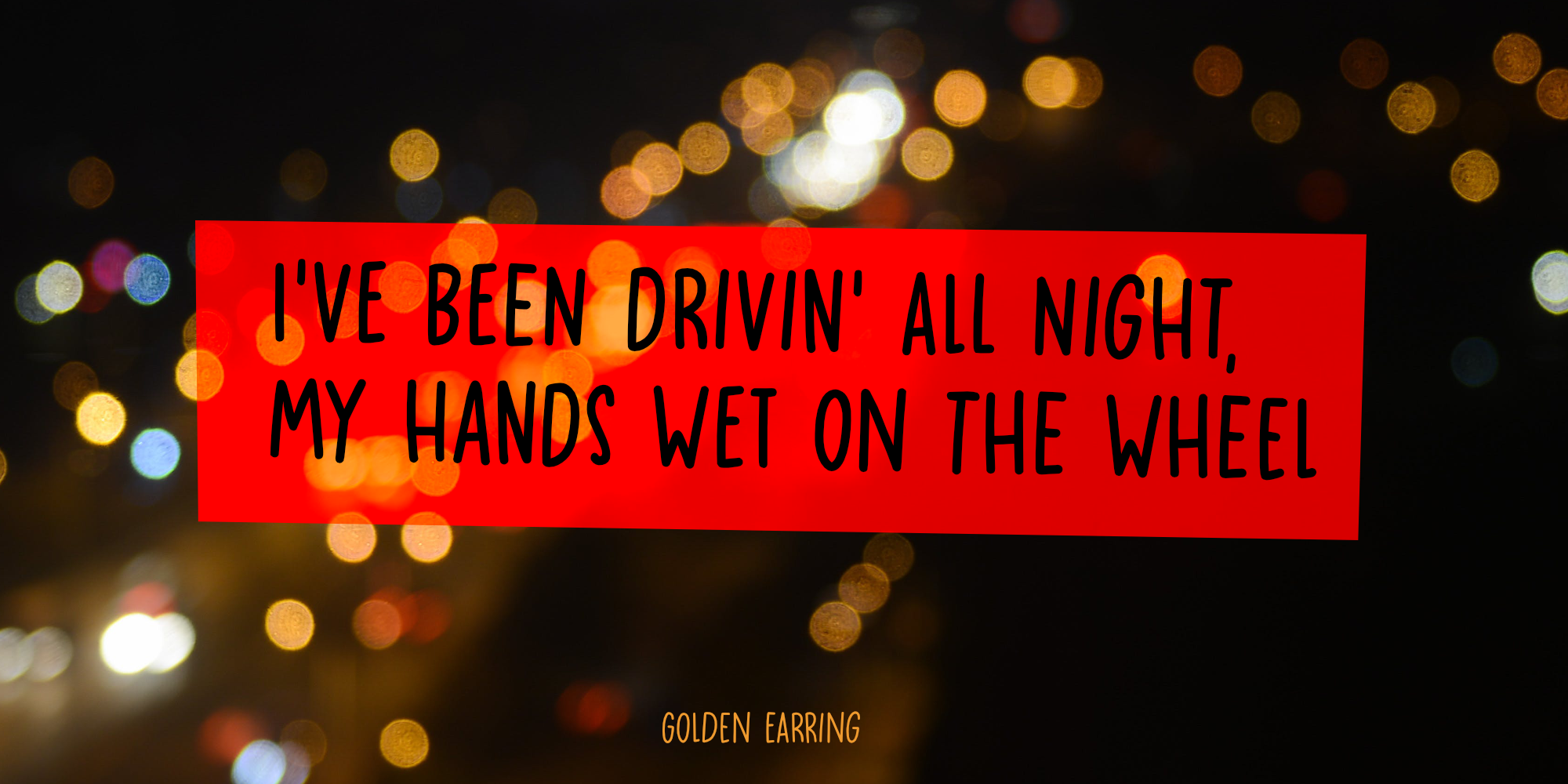
Headlight Blue (4 fonts)
Yes, I know, a long story leading nowhere, but a little personal story (in my opinion) is better than a boring text full of technical bla bla. A font is a font after all and I don’t need to explain what it looks like, because you can see that for yourself! Headlight Blue is a handmade, all caps display font. It comes with all the trimmings, including two sets of alternates that cycle as you type.